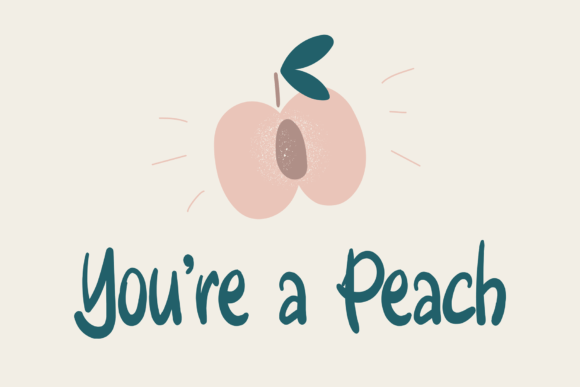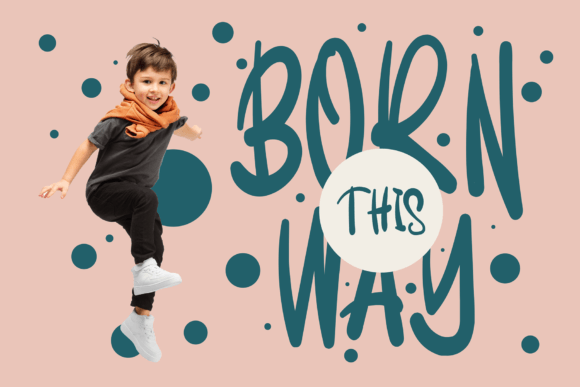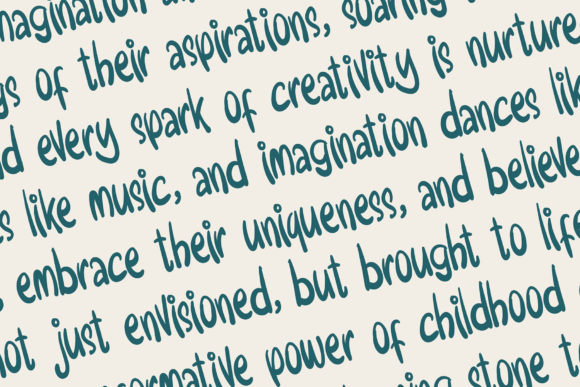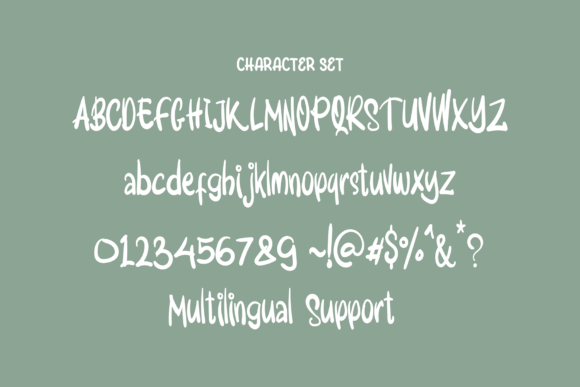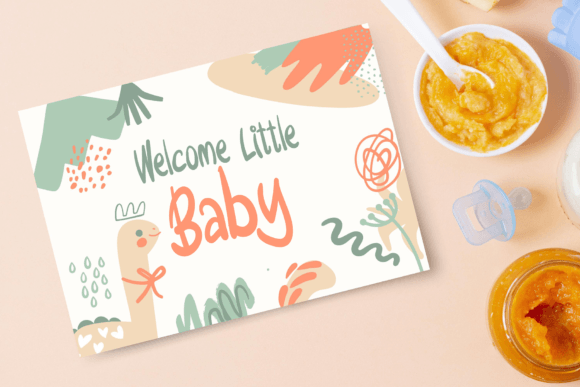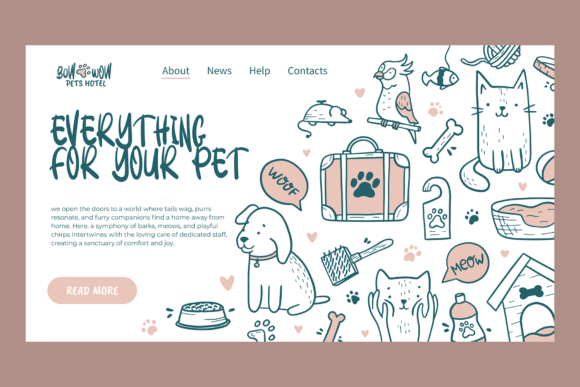
Discover the Whimsy of Adorable Delight Font
As a designer, have you ever stumbled upon a font that makes your heart skip a beat? For me, it’s the moment I first laid eyes on Adorable Delight – Lovely Handwritten Font. Its charming curves and delicate strokes had me hooked from the very start. This font is more than just a typeface – it’s an embodiment of pure charm, whimsy, and unabashed joy.
With Adorable Delight Font, designers can add a touch of magic to their projects. Its soft, handcrafted appearance exudes warmth, inviting us to embrace the beauty found in the imperfect and the genuine. Whether you’re creating a love letter, a greeting card, or a social media post, Adorable Delight Font is the perfect companion to help you express your feelings and add a sense of nostalgia to your designs.
What sets Adorable Delight apart is its ability to make every project feel like an expression of love and a celebration of life’s little wonders. It’s a font that spreads happiness and leaves a lasting impression on the hearts of those who encounter it. With Adorable Delight Font, designers can infuse their work with a sense of whimsy and delight, making it truly unforgettable.
Adorable Delight Font Key Features
• Font Family: Adorable Delight Font
• Font Size: 4,000+ glyphs, including letters, numbers, and special characters
• Unique Characteristics: Whimsical and playful design, perfect for children’s books, nursery rhymes, and educational materials
Adorable Delight Font Review
Overall, I was excited to dive into the Adorable Delight Font and see what it had to offer. As a designer, I’m always on the lookout for unique and charming fonts to add a touch of personality to my projects.
Here’s what I loved about this font:
• ✨ The whimsical feel is perfect for projects that require a touch of playfulness, such as children’s books, party invitations, and more.
• ✨ The font’s irregularities give it a hand-drawn feel that’s both charming and authentic.
• ✨ The Adorable Delight Font is highly customizable, making it easy to adjust the size, color, and style to fit your project’s needs.
However, I did encounter a few limitations:
• ⚠️ The font may be too cursive for some projects, making it difficult to read in certain contexts.
• ⚠️ The font’s irregularities can sometimes make it difficult to adjust the spacing between letters and words.
Overall, I think the Adorable Delight Font is a great choice for designers who want to add a touch of whimsy to their projects. While it may not be suitable for every project, it’s a great option for those who want to stand out and make a statement.
The Adorable Delight Font is perfect for:
– Children’s book covers
– Party invitations
– Wedding stationery
Alternatives to Adorable Delight Font
Great Vibes Font is a modern, elegant script font perfect for creating a whimsical and playful atmosphere. It’s ideal for use in invitations, social media graphics, and advertising materials where a touch of sophistication is desired.
Compared to Adorable Delight Font, Great Vibes Font has a more refined and polished look, making it suitable for a wider range of applications. While Adorable Delight Font is more cursive and childlike, Great Vibes Font is more versatile and can be used in various contexts.